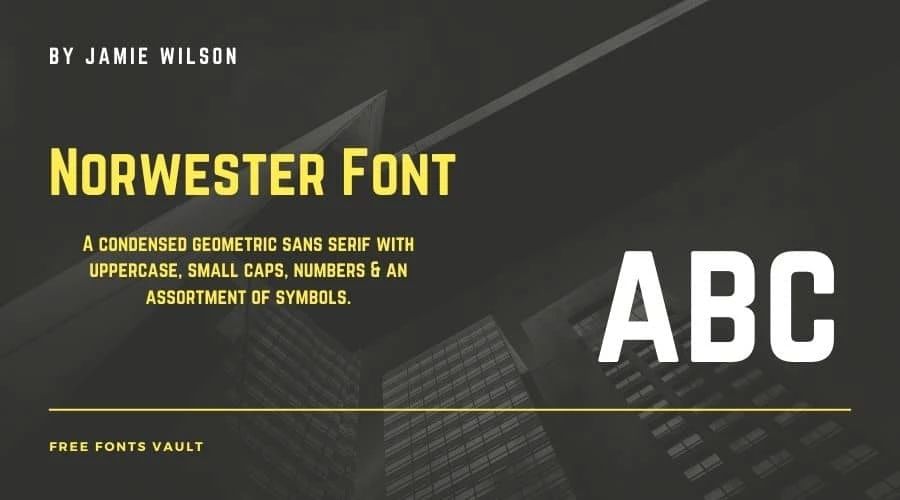
Hi Friends! Today we are presenting an incredible sans serif style font family called Norwester Font. A specialist visual fashioner Jamie Wilson took charge of making this astounding textual style family in 2013. This showcase text style highlights consolidating well with other fundamental typefaces and it will be disobediently reasonable for a novel textual style blending.
A text style family becomes extraordinary when it has all fundamental printed style styles in it for better text-based styles coordinating with the flavor. What’s more, this typeface incorporates that sort of style. Every single character includes an interesting text-based plan as you can find in the pictures we embedded here.
This free font family can be utilized for making a logo, banner formats, film titles, Business card plans, book covers, wedding or greeting card plans, flags plans, etc. Additionally, Using this textual style family in web advancement or game improvement will be the best thought.